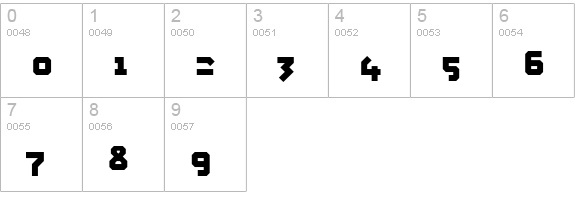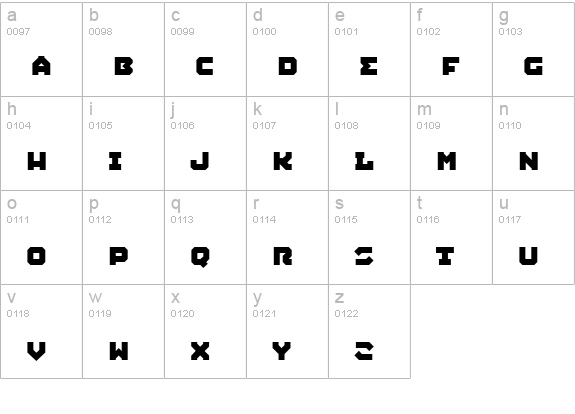
Squid Caps Font Details
Introducing Squid Caps, a captivating and versatile font that is sure to make a splash in your design projects. With its unique and playful design, Squid Caps adds a touch of whimsy and creativity to any text or headline. Each letter is expertly crafted, featuring intricate details and a charismatic style that will instantly grab the attention of your audience. What sets Squid Caps apart is not only its eye-catching aesthetics but also its accessibility. This incredible font is available for free, allowing designers, artists, and enthusiasts alike to effortlessly incorporate it into their projects without breaking the bank. You can easily download Squid Caps at FontsMarket.com, a trusted source for high-quality fonts. Whether you're designing a logo, creating a poster, or crafting an eye-catching social media post, Squid Caps offers endless possibilities for your creative ventures. Its bold and distinctive appearance guarantees that your message will leave a lasting impression. From playful and fun to elegant and sophisticated, Squid Caps effortlessly adapts to suit any design style or concept. With its extensive character set, including uppercase letters, numbers, and punctuations, Squid Caps provides ample versatility to bring your vision to life. Whether you're aiming for a quirky, handcrafted look or a sleek and modern design, this font has got you covered. Incorporate Squid Caps into your designs and watch as it injects a burst of personality and charm. Let your creativity flow freely as you explore the wide range of possibilities that this font offers. Download Squid Caps for free at FontsMarket.com and unlock a world of endless design possibilities.